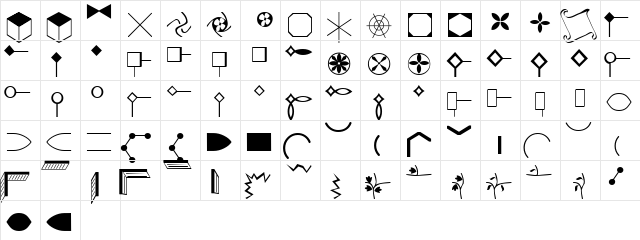
XMMPattern Regular
Design Context for XMMPattern Typeface
XMMPattern takes a measured approach to typography — its balanced proportions and neutral character make it a reliable workhorse for both digital and print work.